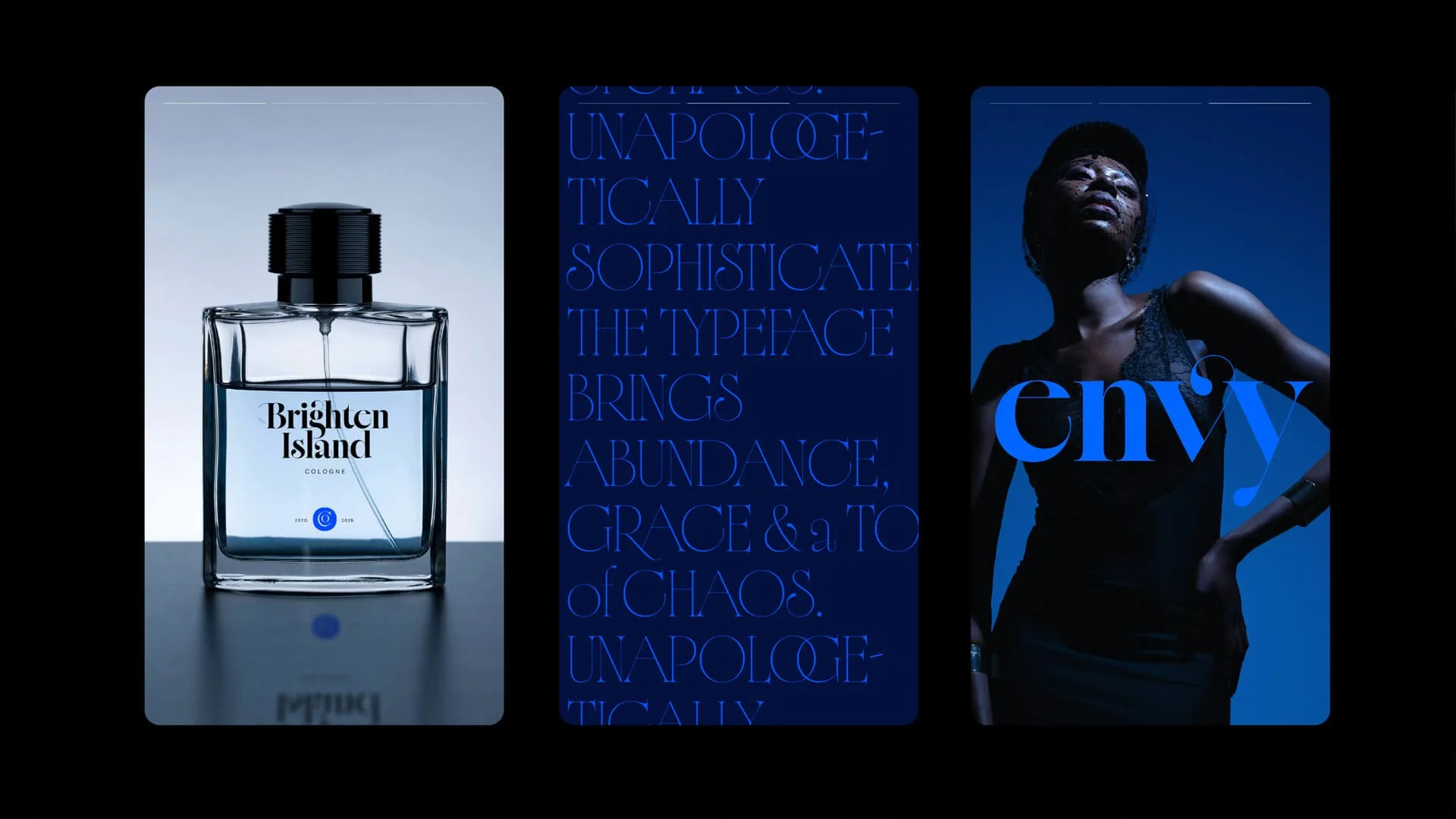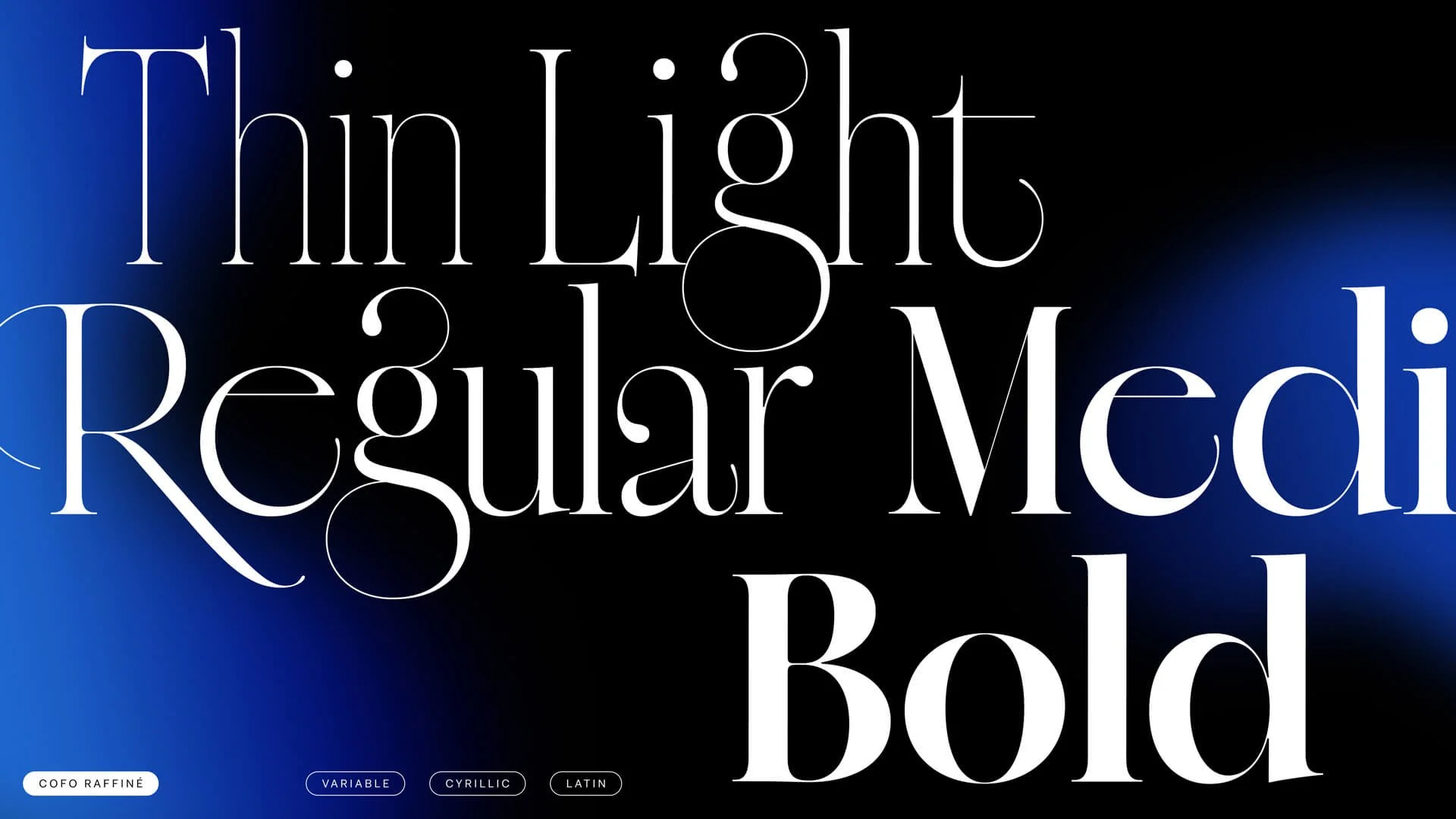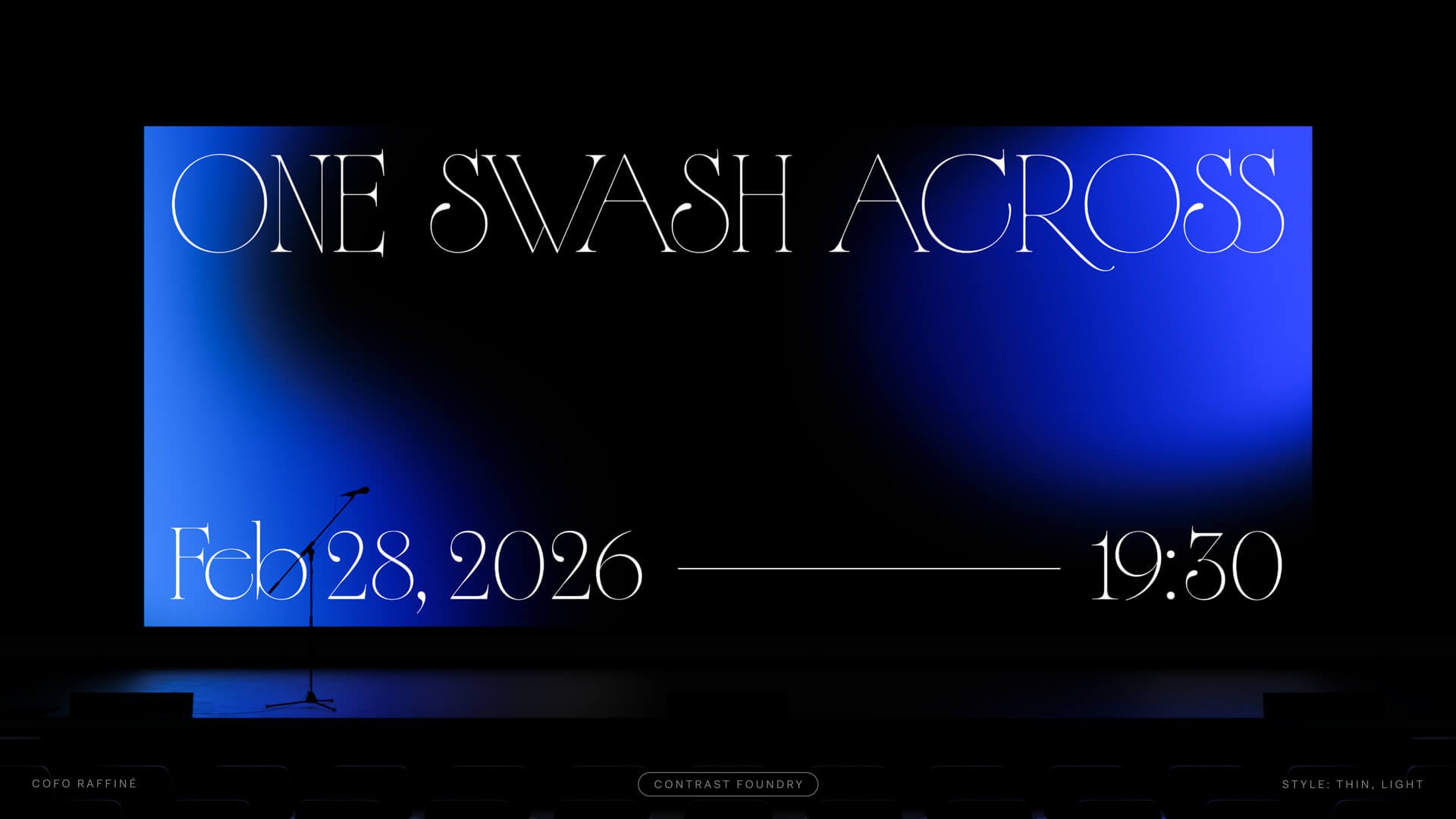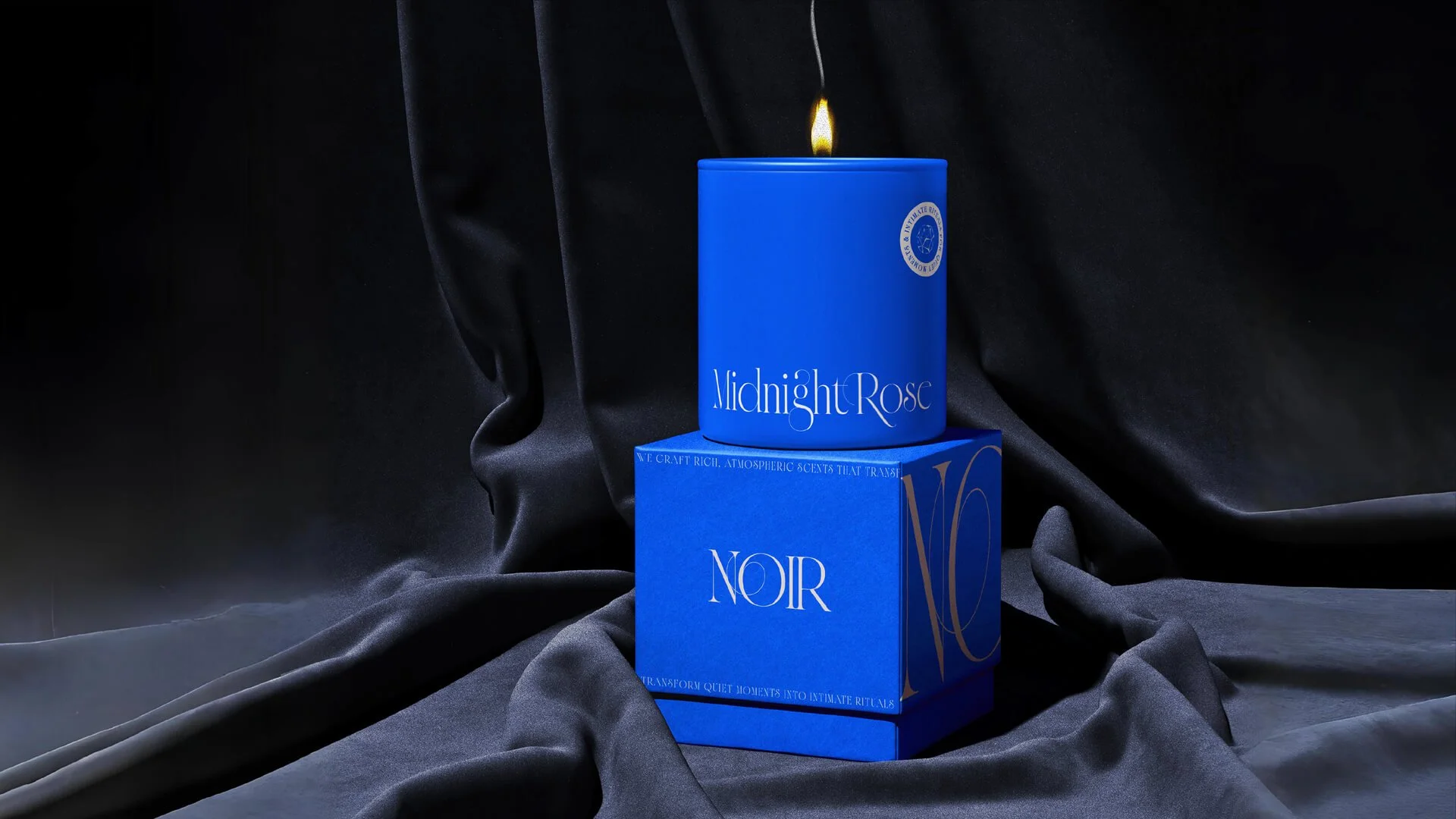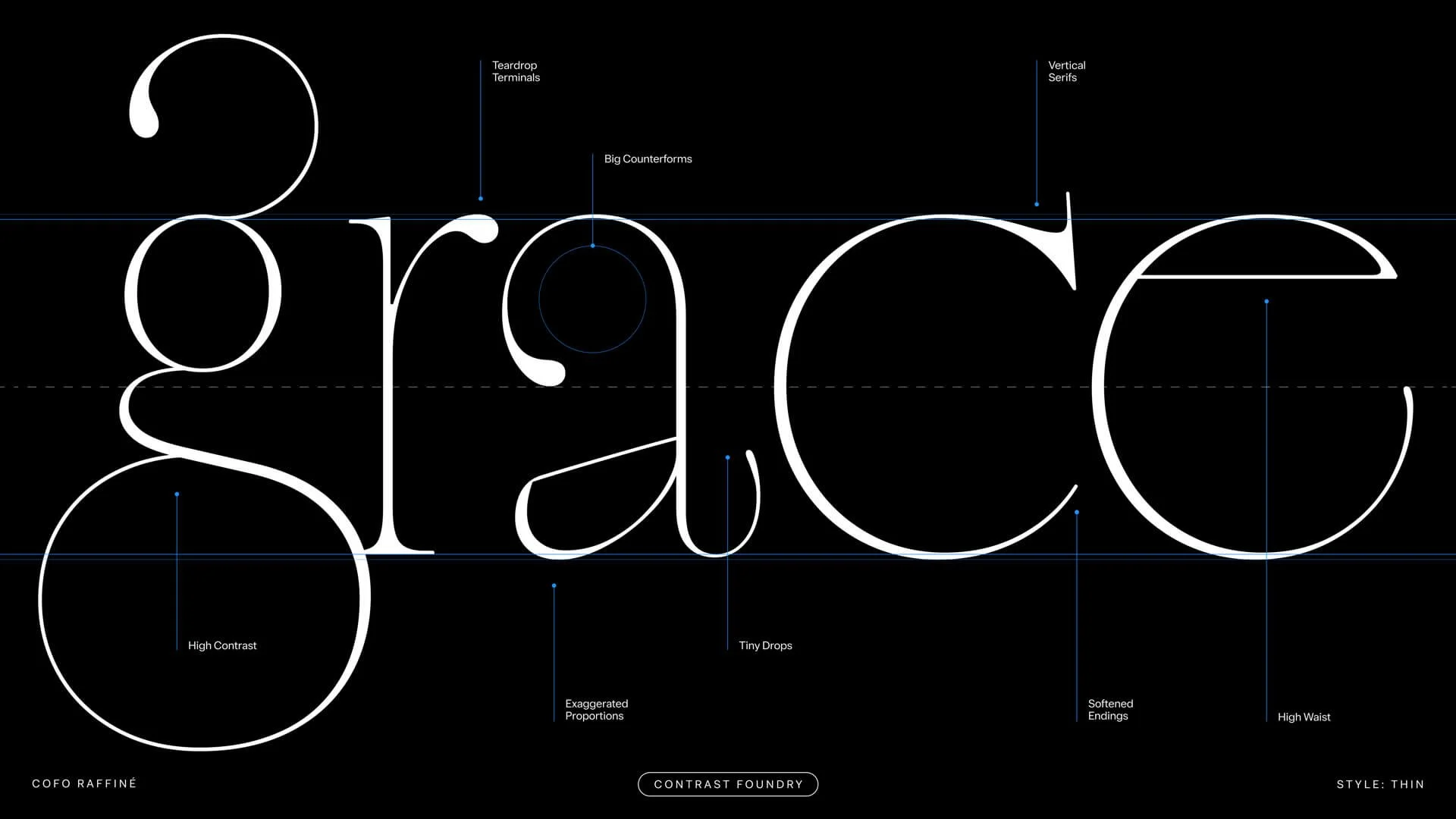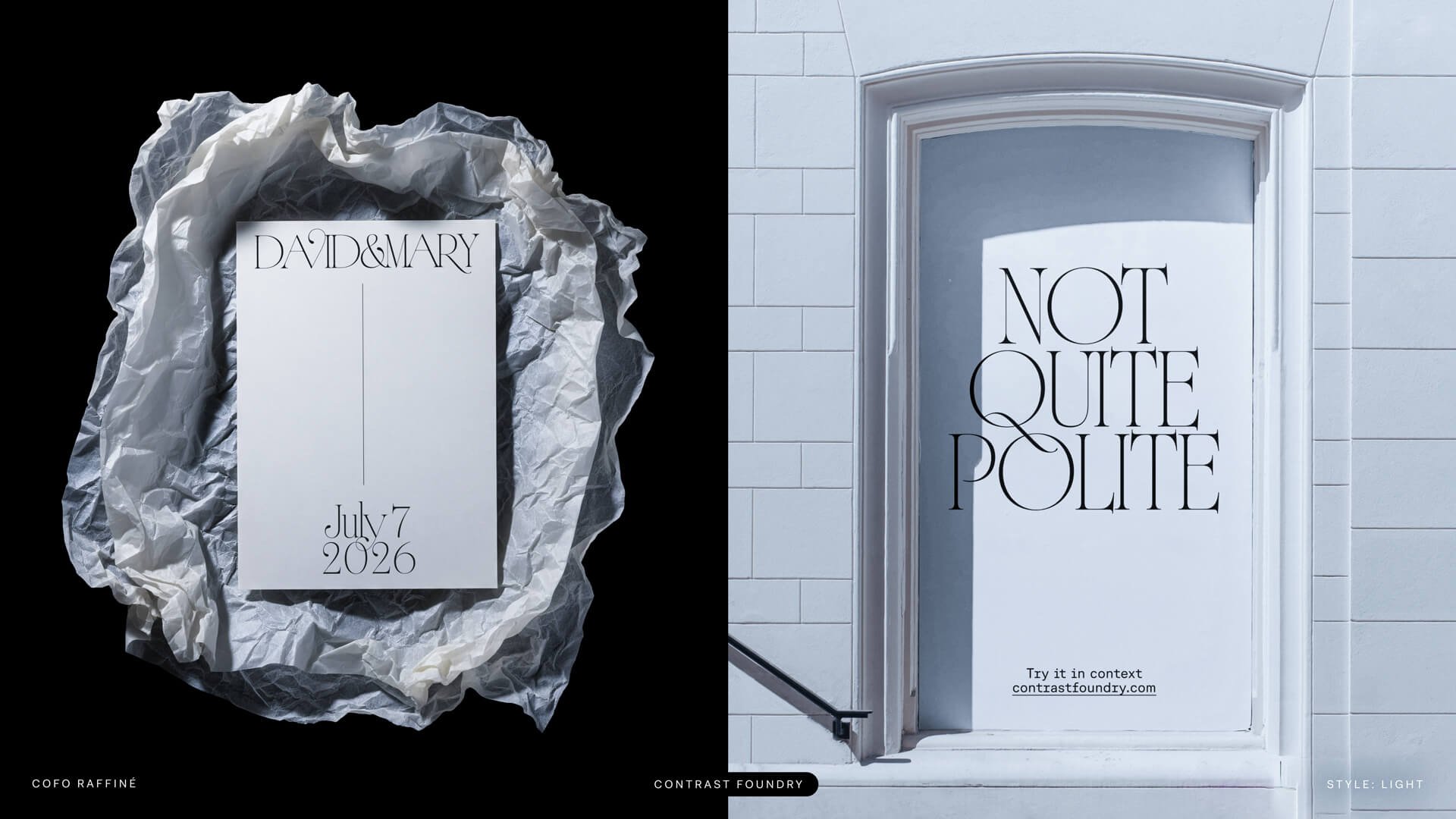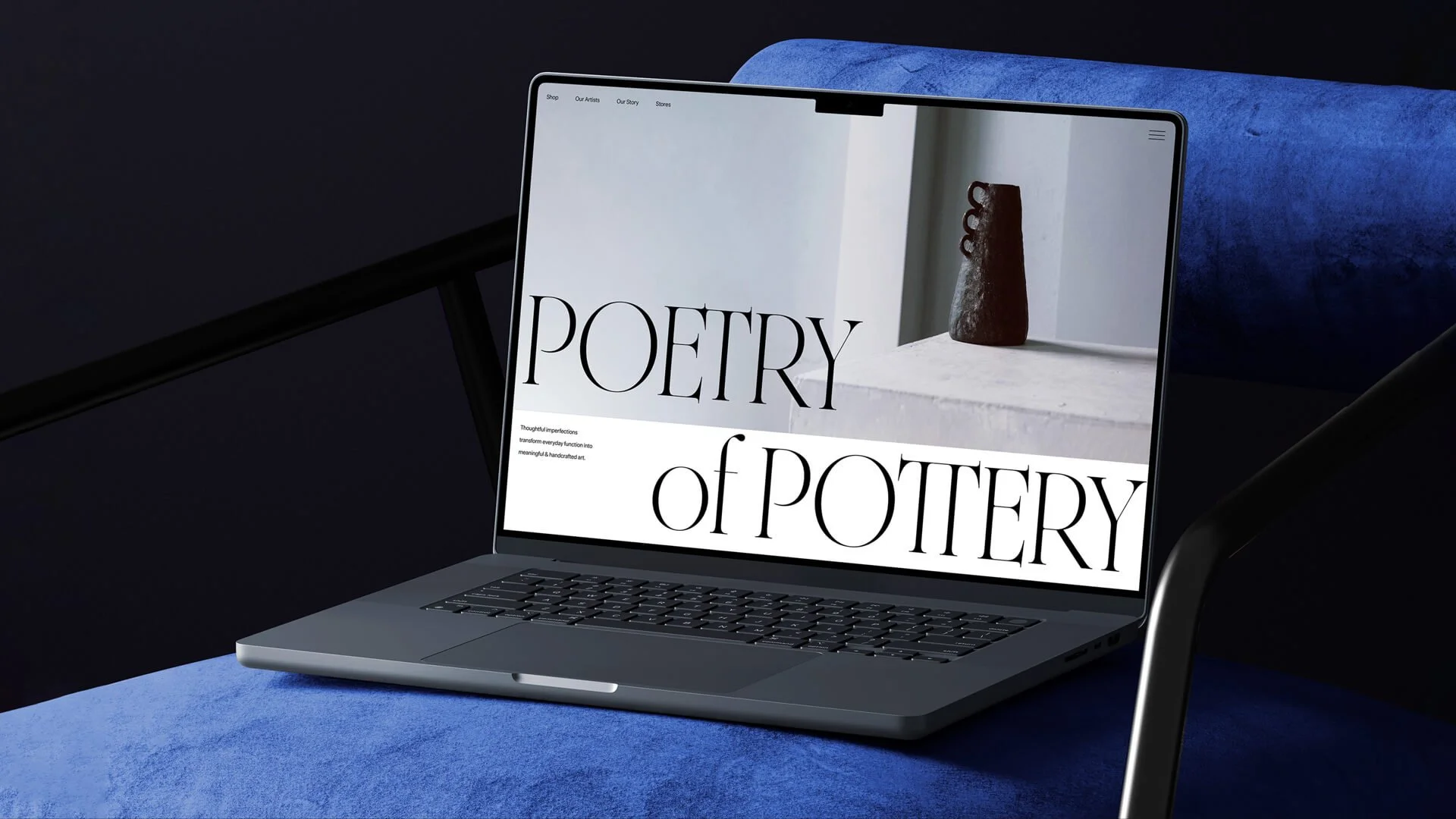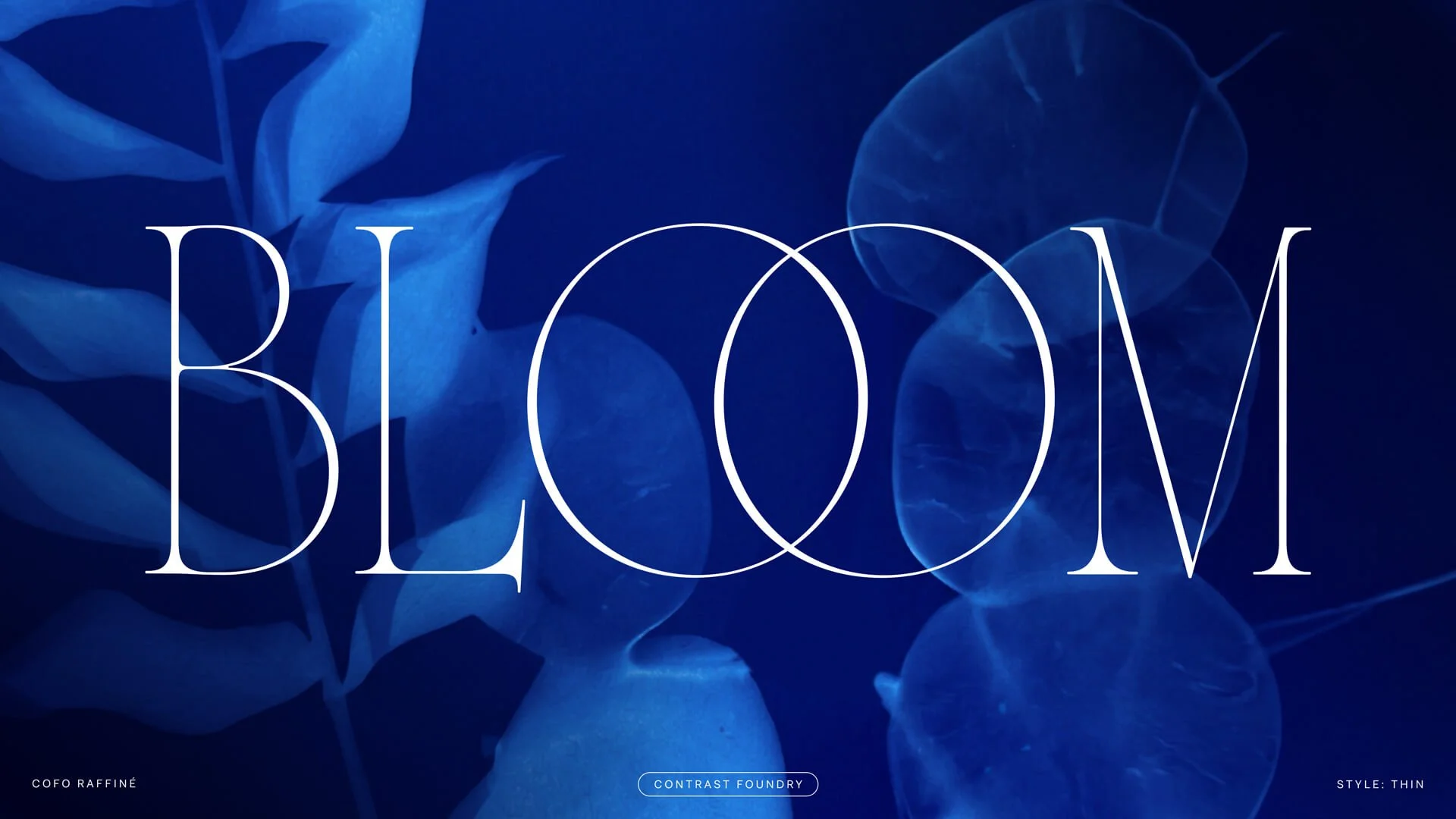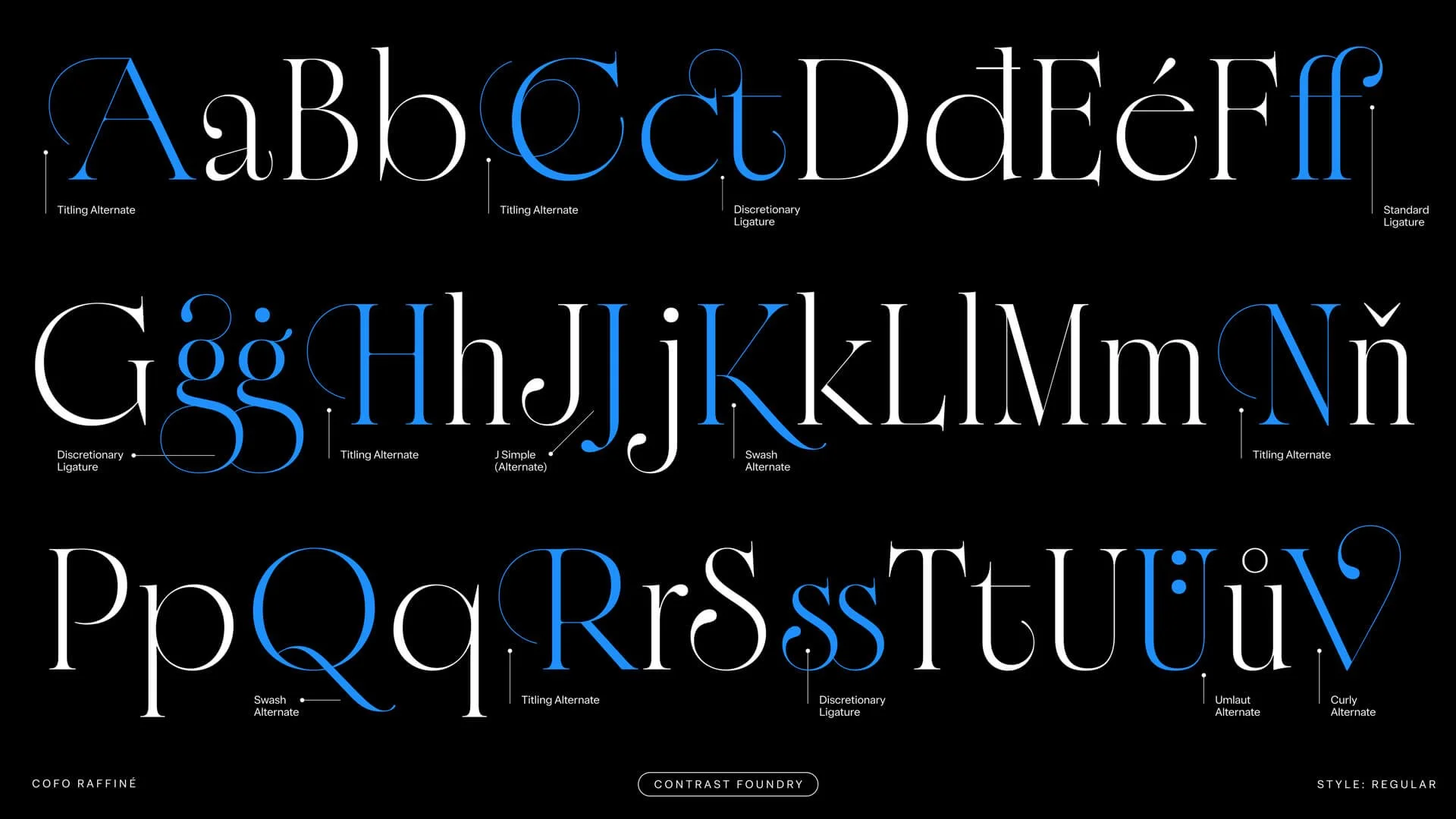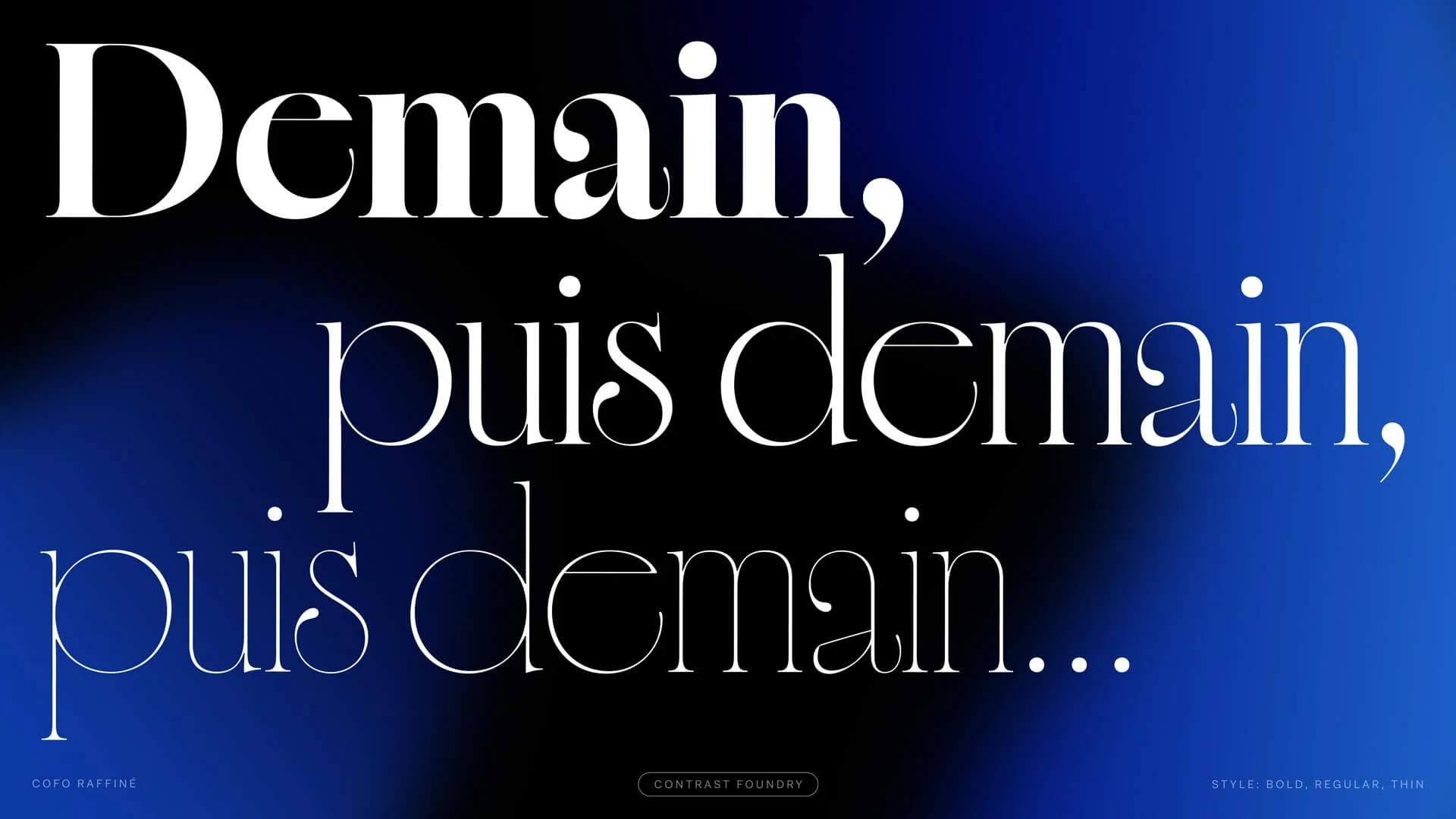
CoFo Raffine
CoFo Raffine is an eclectic typeface with a vivid character. Packed with personality on many levels, it is bursting with confidence, energy and style. An amplified variation in proportions makes typesetting any word, title or sentence unpredictable and exciting. The difference in proportions exists not only in the width of characters, but also in the exaggerated forms of individual letters. This deliberate asymmetry increases even further by a carefully balanced selection of swashes and ligatures.
Avoiding simplification at all costs, CoFo Raffine is a rich and exciting design. It encapsulates the free spirit of a 1919 classic silent film (whose title lettering it was originally inspired by), but the elegant shapes and high contrast evoke a wide range of associations. Designers get a variety of opportunities to play with the design, with almost no limitations, just stick to larger font sizes, please!